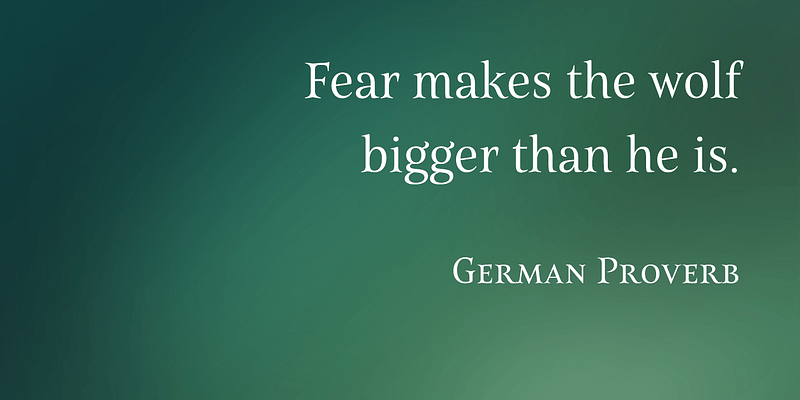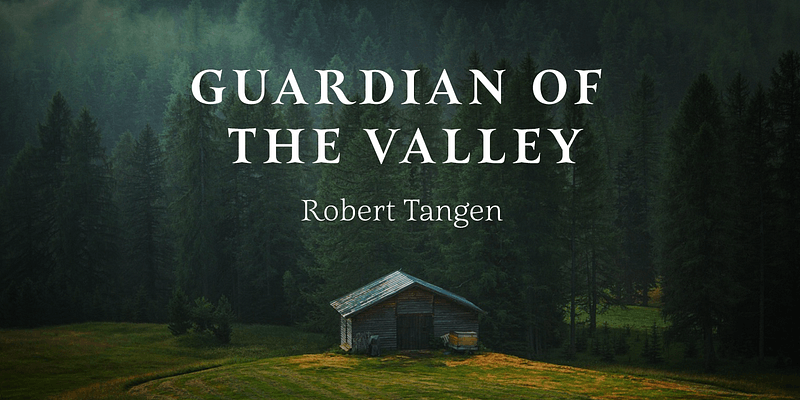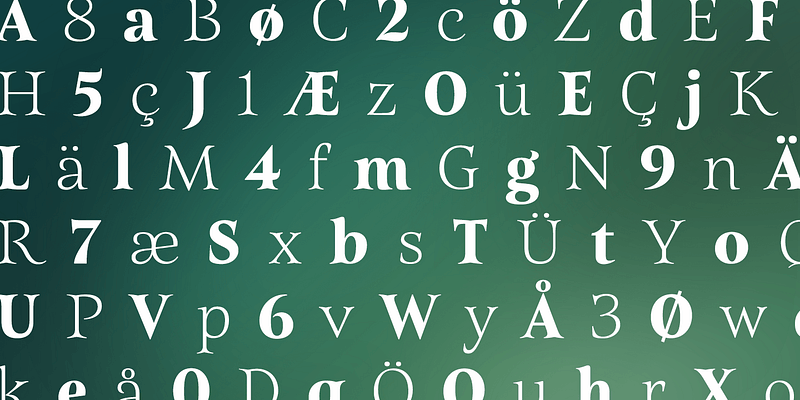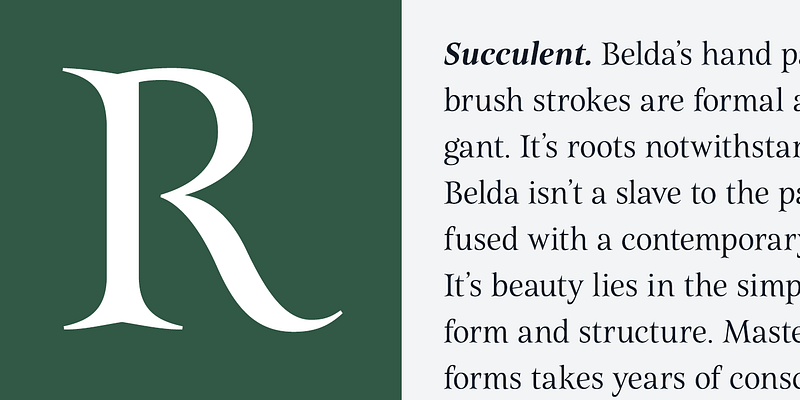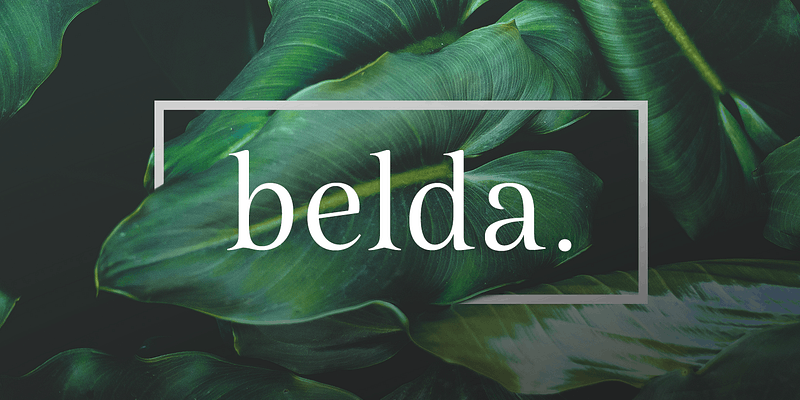
Belda’s graceful style embodies the classical calligraphy of the Roman capital. Its delicate shape, curves and sharp serifs provide a unique style of harmony and beauty.